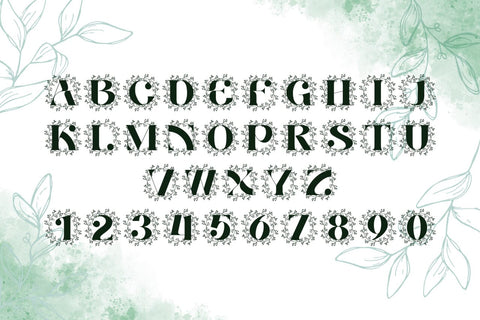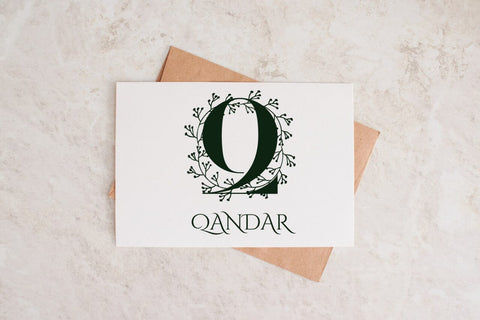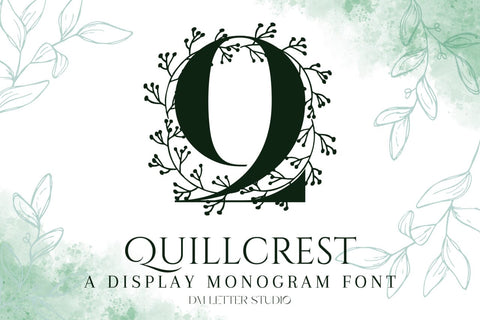
Quillcrest Monogram Font
Meet Quillcrest, the Monogram Font
Quillcrest Monogram Font turns simple initials into poised, boutique-ready emblems with a hint of calligraphic grace. Strokes are smooth and confident; counters stay open for crisp reading on tags, seals, stickers, and thumbnails. Use it for wedding suites, boutique logos, keepsake gifts, certificate seals, and premium packaging. Because spacing is steady and forms feel refined, layouts look elegant at small sizes and still hold presence on large prints.
Where this monogram font shines
Set single, double, or triple initials for logos, menus, place cards, and wax seals. Then frame them with laurel rings, oval borders, ribbon badges, or fine rules to echo Quillcrest’s calm geometry. Since proportions favor symmetry and clarity, centered compositions come together in minutes. As a result, your shop listings stay cohesive across invitations, signage, boxes, and tags. Quillcrest also scales smoothly from jewelry cards to foyer signs.
Design tips for Quillcrest Monogram
Keep initials large and let white space breathe. Pair the hero mark with a soft serif for body copy or a neat humanist sans for dates and labels. Add a fine inner stroke, micro shadow, or delicate frame to create depth without clutter. Because the structure is airy and balanced, textured papers and metallic foils raise perceived value. Keep copy short so the monogram stays the hero on favors, tags, and wax seals.
Select stylistic alternates for key letters
Curves tuned for foil, letterpress, engraving, laser cutting, and clean vinyl paths
Why creators choose this monogram font
You want elegance that reads at a glance and sells across many products. Quillcrest Monogram Font delivers steady clarity, quick layout, and a cohesive brand voice from invites to packaging and gifts.